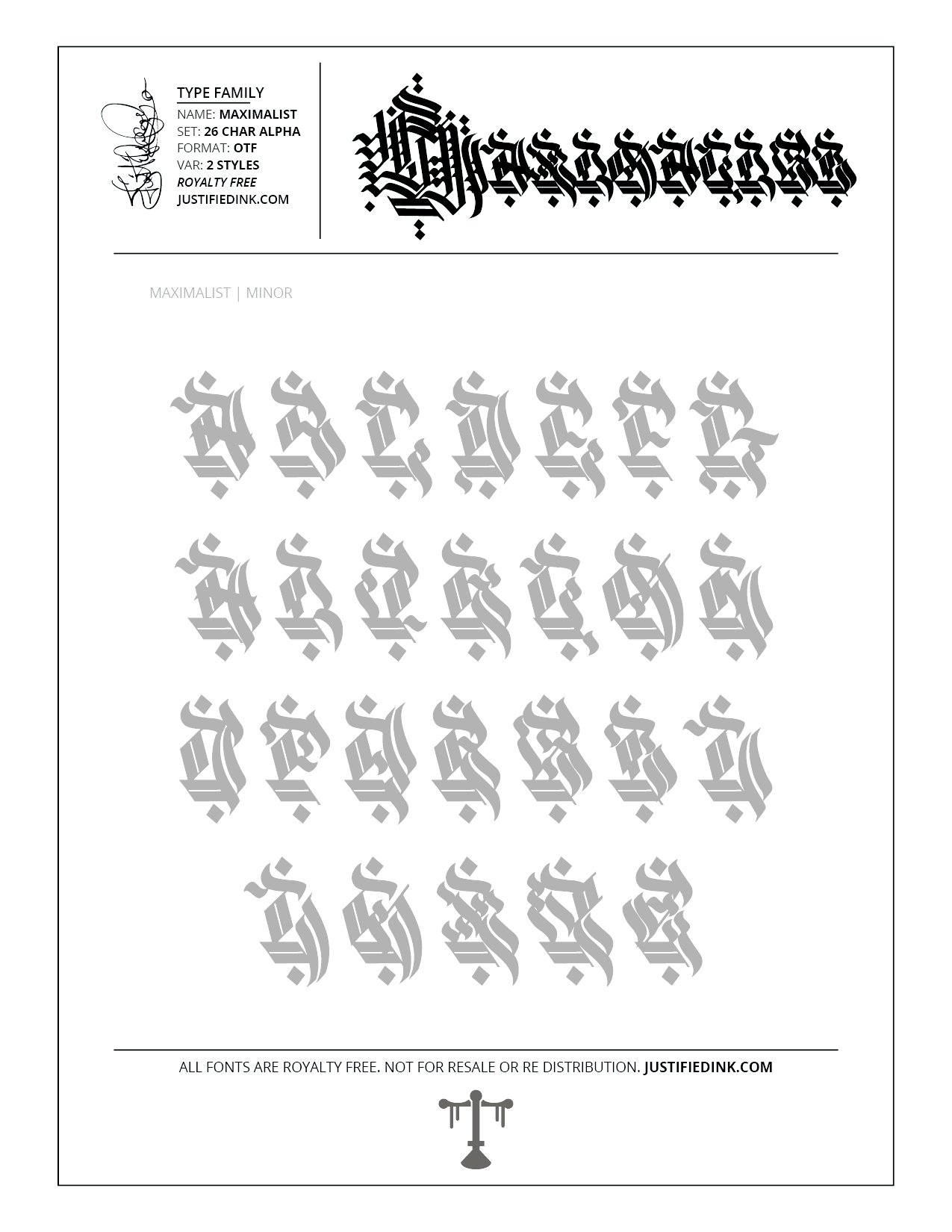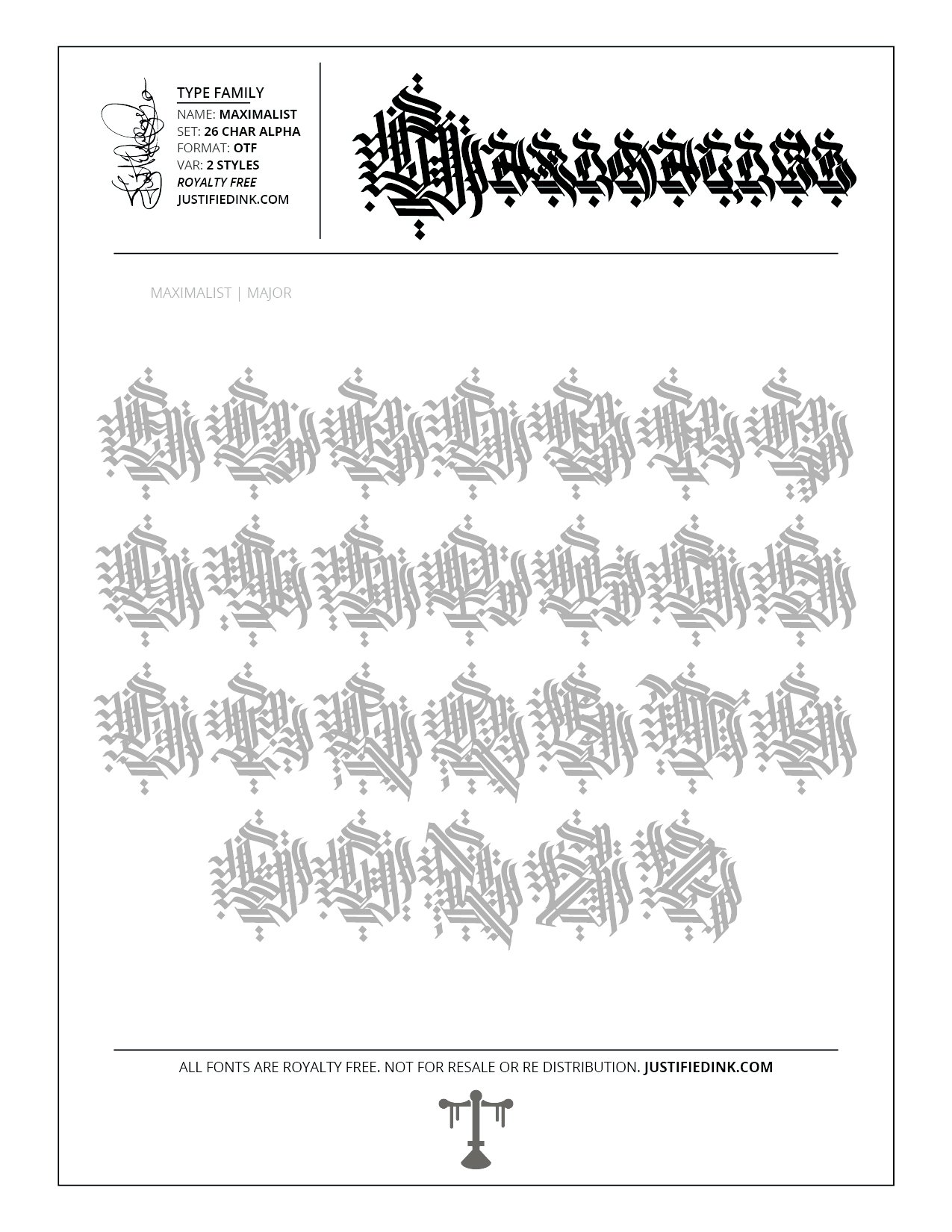
Maximalist (2 style) - Custom Font by Justified Ink
NAME: Maximalist
SET: 26 CHAR ALPHA
VAR: 2 STYLES
An unapologetically over-the-top style of blackletters, Maximalist gets the most out of all available space inside each letter. Using both Major and Minor styles there are endless possibilities with taking it too far, and thats just perfect.
This font is part of the collection by Justified Ink, called Blackletter II. After 15+ years creating, I began to focus on building personal libraries of my work. The Blackletter II Collection was created through writing page after page, and countless hours over a 2 year span of daily practice. Each font from this collection has been hand drawn, manually vectored, and custom set as a type-able font. It comes in a full set of 26 char alpha. Each font family has variations in styles and/or non-alpha chars.